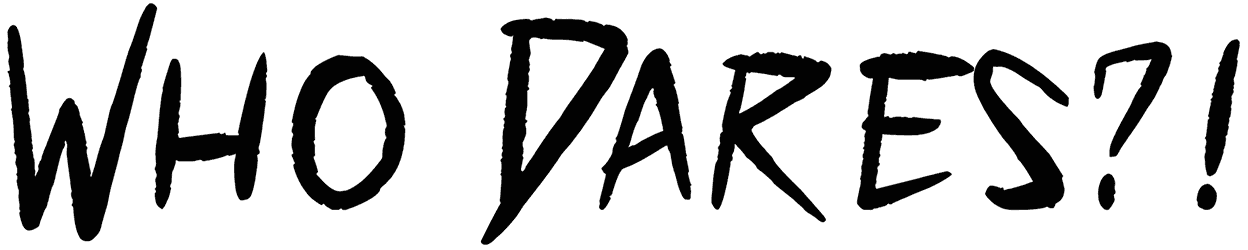
Who Dares?! Font
Who Dares Font
Do you want to execute a perfect spooky design that no one can criticize, so, add Who Dares?! to your collection immediately. This brush font with its uncoordinated texture and exotic style can outstand your posters and invitations for the Halloween events.
Although Who Dares?! doesn’t include lowercase letters, the creepy nature of this horror font, which is presented in two styles, has turned it into a versatile font.